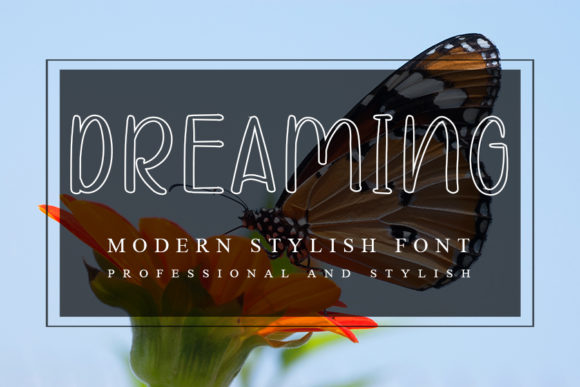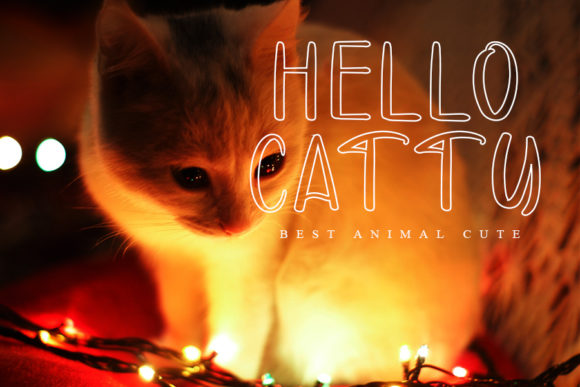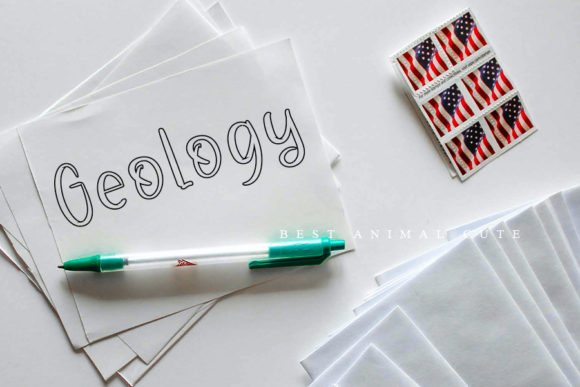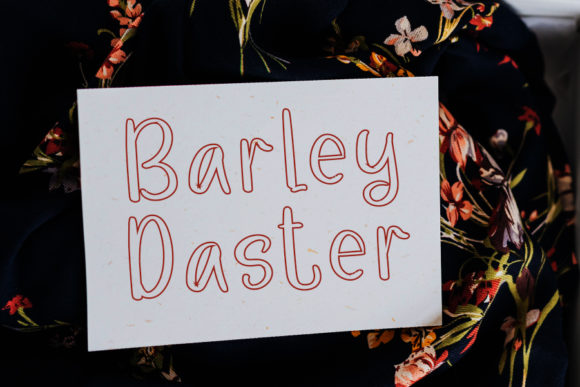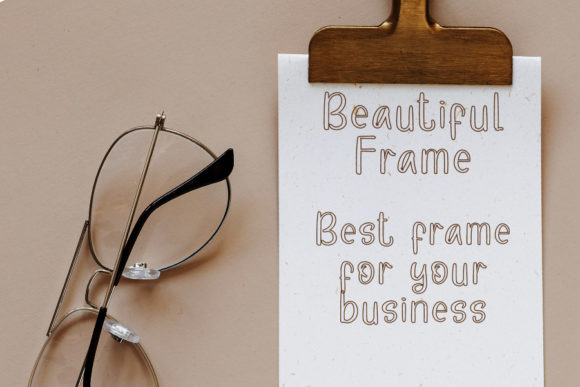
Dreaming Font
About Dreaming Font
Dreaming is a playful and magical handwritten font. It is the perfect fit for all of your logos, branding, social media, and crafty DIY projects.